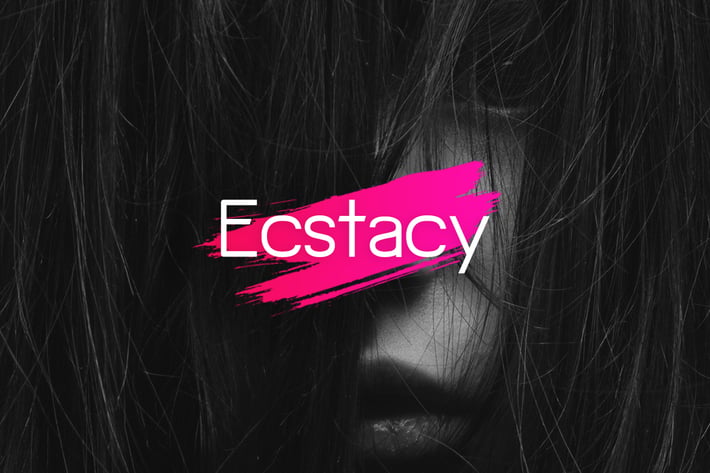
Ecstacy Display Typeface + Webfonts
Ecstacy DisplayTypeface
Ecstacy is a modern Sans Serif typeface very much suitable for Film Posters, headlines, Block letter, Subheading, Logo Designs, Big Banners. Classic & Decorative Typography Web Designs.